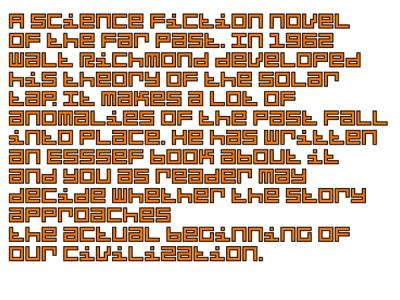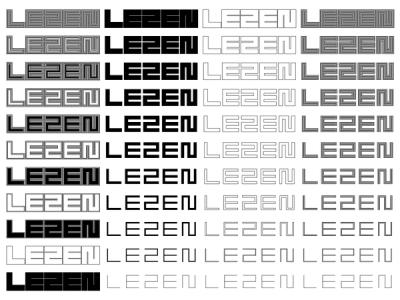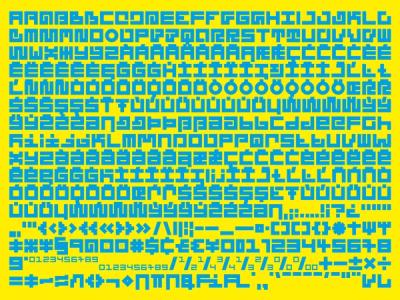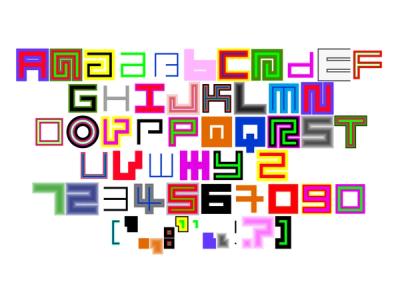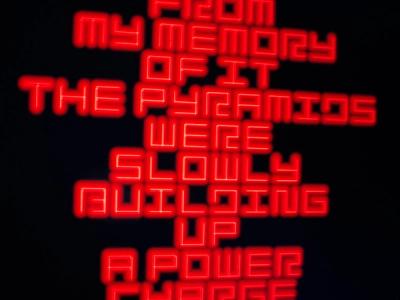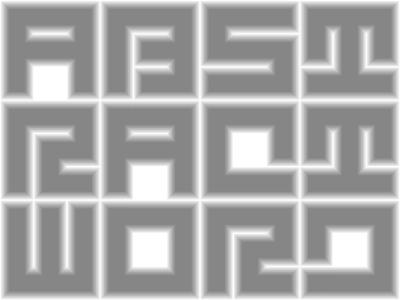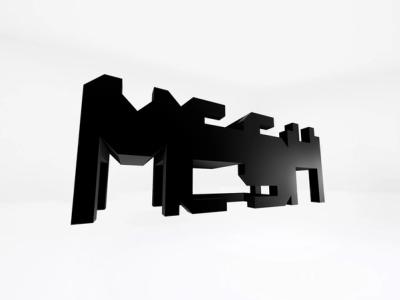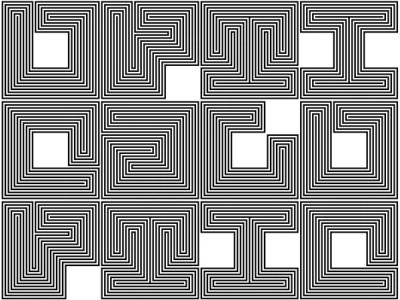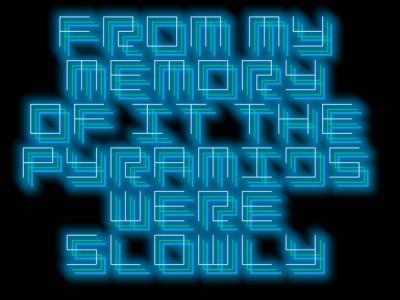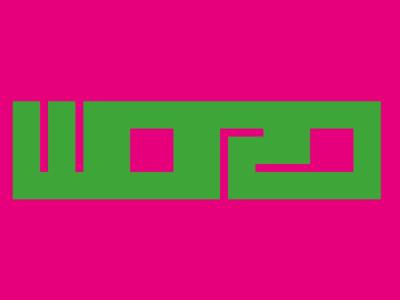
LEZEN TYPEFACE
Lezen: this type family refers to the graphic and type designer Jurriaan Schrofer (1926-1990). Contemporary of the New alphabet’s designer Wim Crouwel (1929-2019), Schrofer considers the text as a real malleable and sculptural material. Having worked a lot on the idea of typographical variations, we wanted to pay tribute to one of his work, released in 1971: “Wie dit leest is gek” (Whoever read this is crazy). By creating a typeface with multiple contours, and infinite possibilities of composition, it opens a territory of typographical experimentation large enough to respond to the different titration scales. Moreover, Lezen is an ideal typography in its capacity to be translated in 3D, as the free and multidimensional work of Jurrian Schrofer. Lezen it’s more than 400 glyphs per style, 44 styles with four stylistic sets which change the font aspect and the complexity of the geometric shapes. The variety of the letter shapes allows you to find more singularities between legibility and sculptural complexity. Play with layers (Floor, City, Glow Optical) by superposing them with colors to create multiple combinations to experiment with.
LEZEN TYPEFACE Details
• Design
Marie-Mam Sai Bellier (Diorama Type Partners) and Guillaume Sbalchiero, 2019-2021
• Font Development
Martin Violette
• First Apparition
Revue Diorama No.2, Geometric City
Lezen typeface